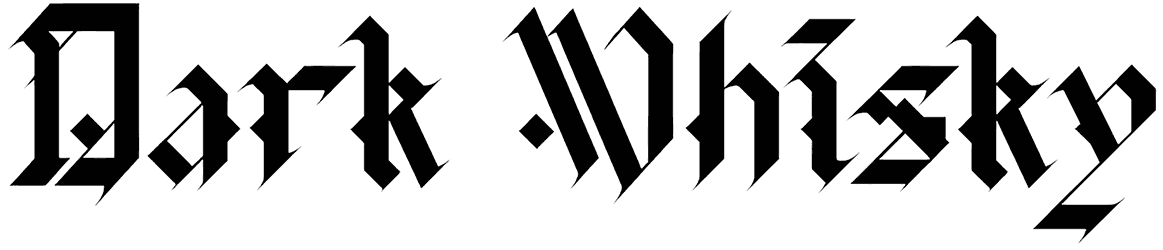
Dark Whisky Font
Meet Dark Whisky, a gothic font that combines thick and thin lines with sharp edges in a creative way. It will be perfect whether you want to display a scary, mysterious touch or a classy, luxurious look, and lucky for you, it can make your work seem more professional, so don’t hesitate and pick it up.
You can use this whiskey font for historical movie posters, T-shirt prints, wine branding, tattoo logos, or any vintage theme design that needs a strong impression.